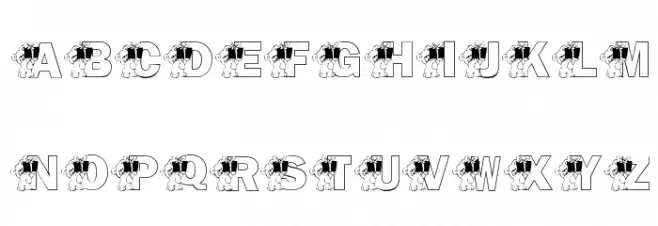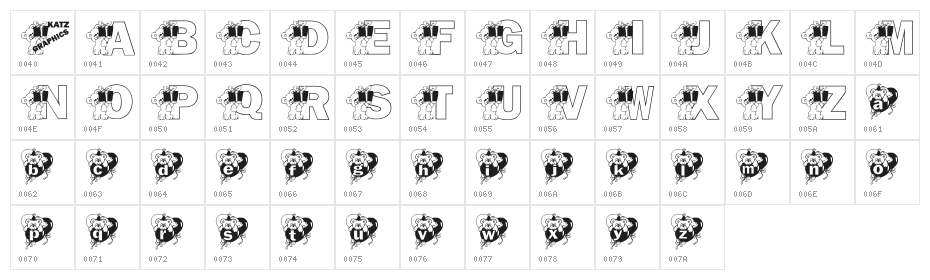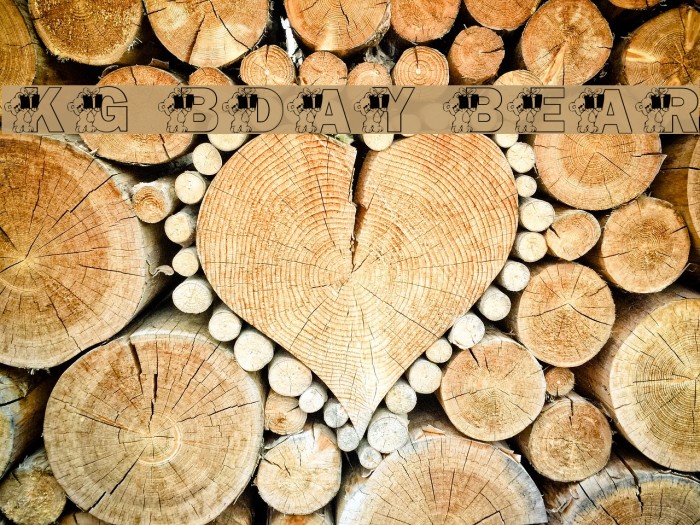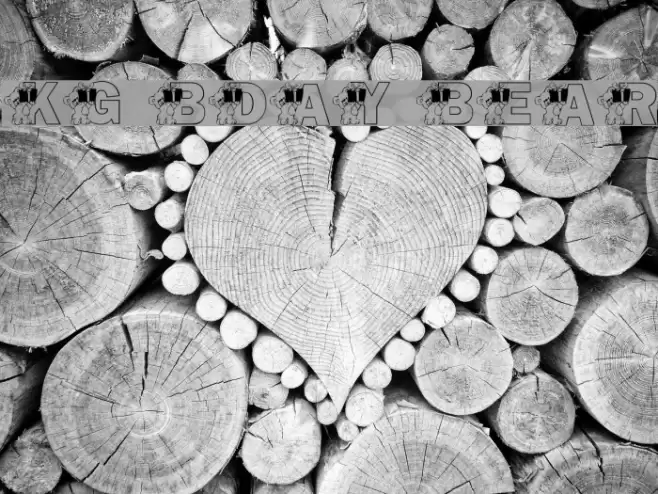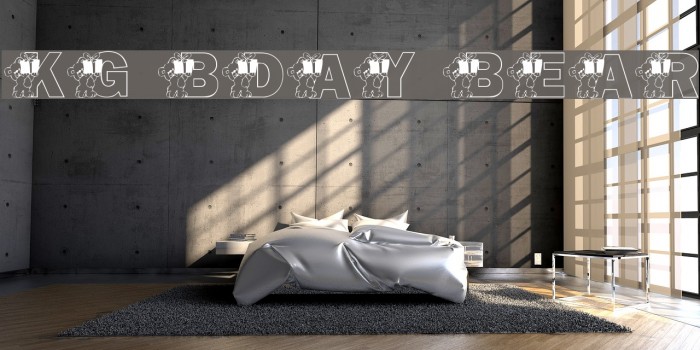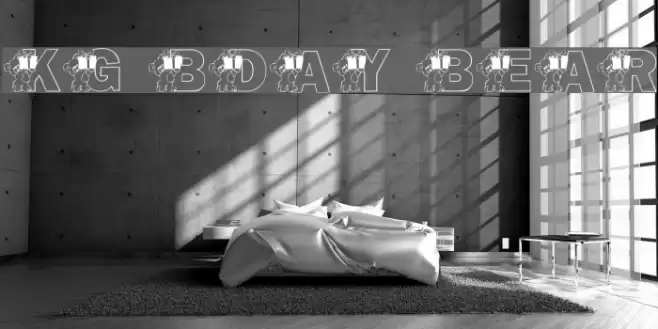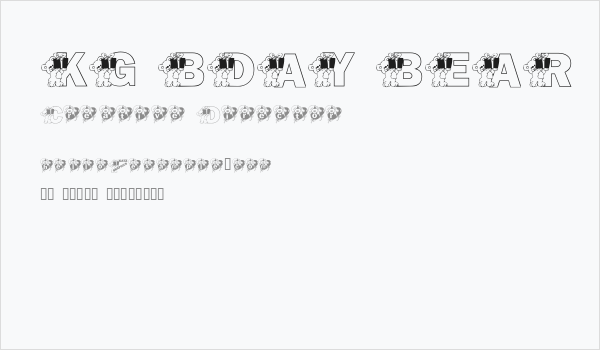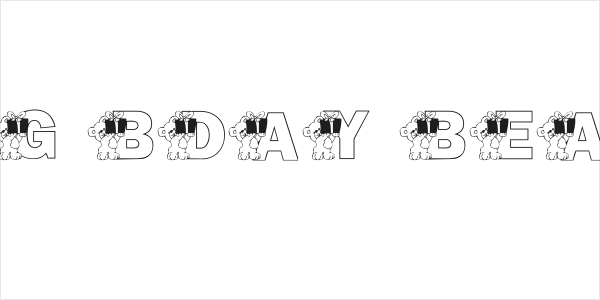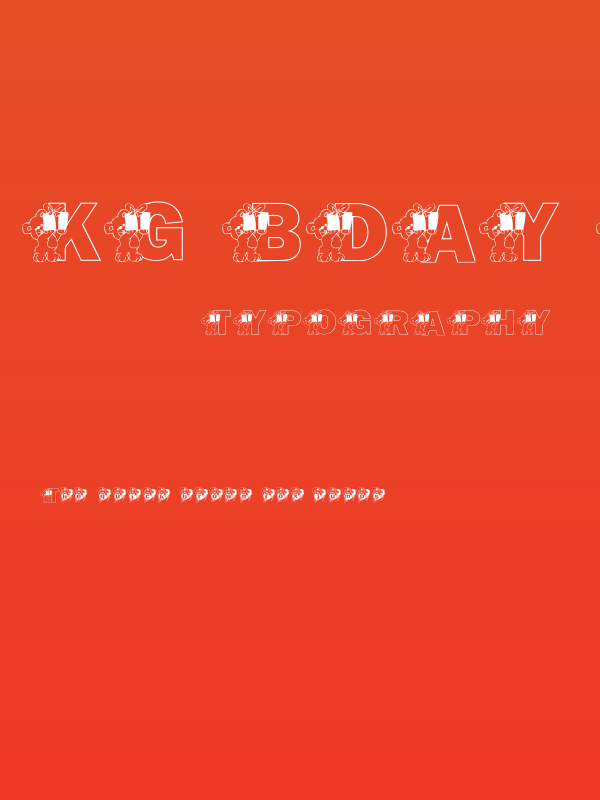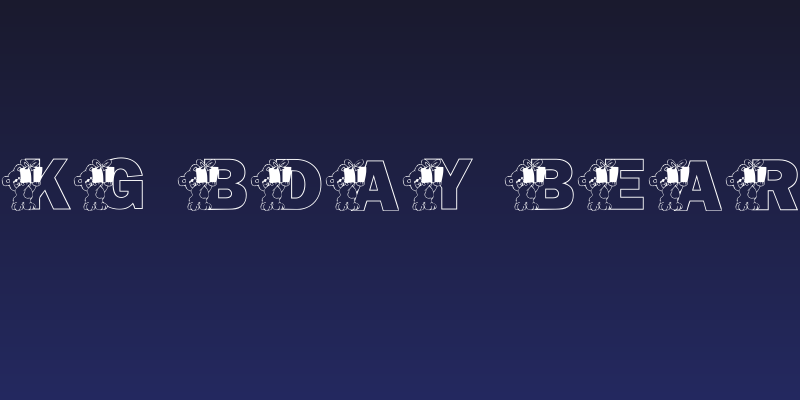
KG BDAY BEAR Font
KG BDAY BEAR Description
This playful and whimsical font features each character accompanied by a charming bear holding a heart-shaped balloon. The letters are bold and outlined, providing a clear and distinct appearance that stands out. The bear illustration adds a unique decorative element, making it ideal for children's projects or festive occasions. The font maintains a consistent style across uppercase and lowercase letters, as well as numbers and special characters, ensuring versatility in design applications.
Proposed ProjectsIdeal for children's birthday invitations, playful greeting cards, nursery decor, and educational materials.